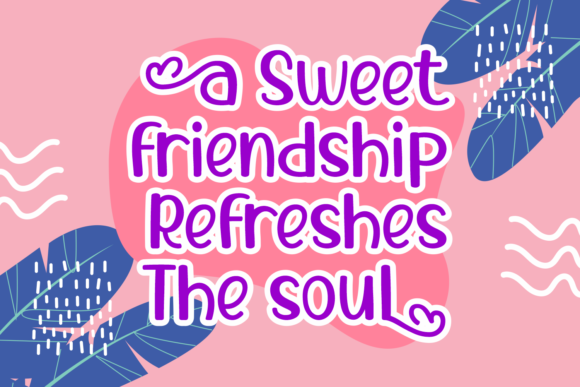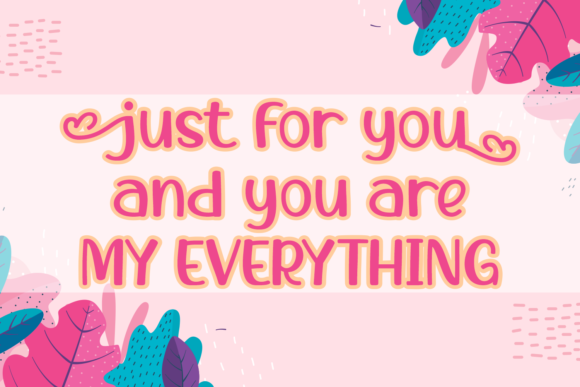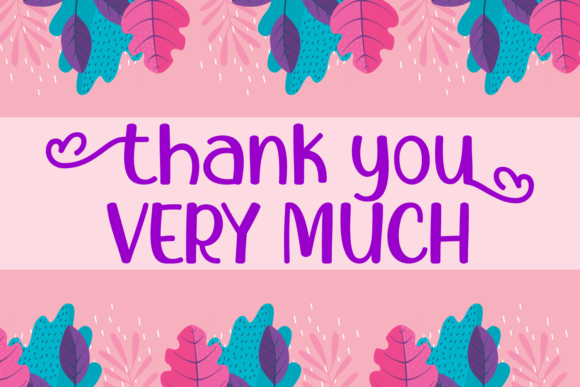
Boba Panda Font: The Whimsical Handwritten Font with a Cheerful Vibe!
Are you tired of using the same old fonts in your designs? Look no further! Boba Panda Font is here to add a touch of whimsy and playfulness to your creations. This handwritten font is perfect for designers and crafters who want to add a cheerful vibe to their work. In this article, we’ll dive into the features and benefits of Boba Panda Font, and explore how it can elevate your designs to the next level.
The Charm of Boba Panda Font
Boba Panda Font is a casual and charming handwritten font that exudes a down-to-earth feel. Its unique and quirky style makes it incredibly versatile, suitable for a wide range of design applications. Whether you’re working on a busy background or creating a standalone headline, Boba Panda Font is sure to make a statement. Its readability is top-notch, making it perfect for body text, captions, and more.
What Makes Boba Panda Font So Special?
So, what sets Boba Panda Font apart from other fonts out there? Here are a few key features that make it a standout:
- Whimsical style: Boba Panda Font has a playful, handwritten style that’s sure to capture the attention of your audience.
- Casual charm: This font has a relaxed, down-to-earth feel that’s perfect for designs that need a friendly touch.
- High readability: Boba Panda Font is incredibly easy to read, making it suitable for body text, captions, and more.
- Versatility: This font can be used in a wide range of design applications, from digital projects to print materials.
How to Use Boba Panda Font in Your Designs
Now that we’ve covered the features and benefits of Boba Panda Font, let’s talk about how to use it in your designs. Here are a few ideas to get you started:
- Headlines and titles: Use Boba Panda Font as a standalone headline or title to add a touch of whimsy to your design.
- Body text: This font is perfect for body text, especially in digital applications like blogs, social media, and email newsletters.
- Captions and quotes: Boba Panda Font is great for captions and quotes, adding a playful touch to your design.
- Branding and packaging: Use this font to create unique and eye-catching branding and packaging designs that stand out from the crowd.
Tips and Tricks for Working with Boba Panda Font
Here are a few tips and tricks to keep in mind when working with Boba Panda Font:
- Experiment with colors: Boba Panda Font looks great in a variety of colors, so don’t be afraid to experiment and find the perfect hue for your design.
- Mix and match: Try pairing Boba Panda Font with other fonts to create a unique and eye-catching design.
- Play with sizes: This font looks great in a range of sizes, from small captions to large headlines.
In conclusion, Boba Panda Font is a whimsical handwritten font with a cheerful vibe that’s perfect for designers and crafters looking to add a touch of playfulness to their work. Its casual charm, high readability, and versatility make it an excellent choice for a wide range of design applications. Whether you’re working on a digital project or creating print materials, Boba Panda Font is sure to make a statement. So why not give it a try and see how it can elevate your designs to the next level?